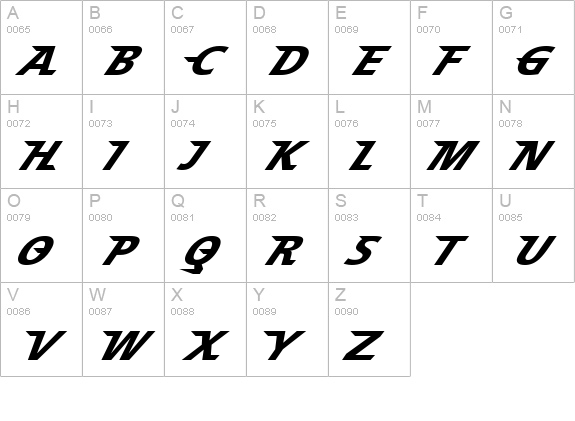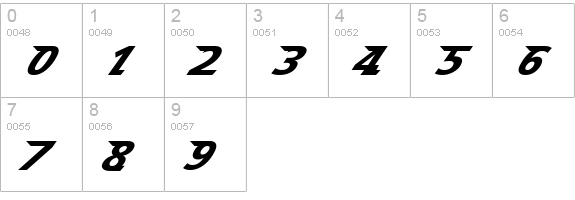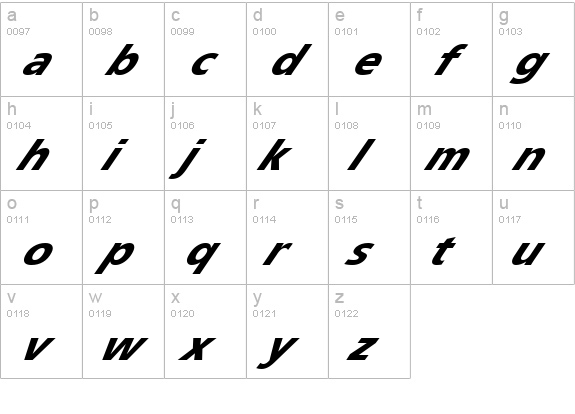
Speedy 12 Font Details
Speedy 12 font is the epitome of elegance and versatility. With its sleek and modern design, this font is perfect for any project that requires a touch of sophistication. Whether you're designing a logo, creating a website, or designing a brochure, Speedy 12 font will elevate your work to new heights. One of the best things about Speedy 12 font is that it is freely available to download at FontsMarket.com. This means that you can easily access this stunning font without any cost. Don't let your budget hold you back from creating amazing designs - with Speedy 12 font, you can achieve professional results without breaking the bank. Not only is Speedy 12 font visually appealing, but it is also highly legible. Its clean lines and well-defined characters make it easy to read, ensuring that your message gets across effectively. Whether you're using it for body text or headlines, Speedy 12 font will make your text effortlessly readable. Another standout feature of Speedy 12 font is its extensive character set. With a wide range of glyphs and symbols, this font allows you to express your creativity and add unique elements to your designs. From special characters to alternate letterforms, Speedy 12 font offers endless possibilities for customization. In addition to its aesthetic appeal and versatility, Speedy 12 font is also compatible with various software and platforms. Whether you're using Adobe Creative Suite, Microsoft Office, or any other design software, you can easily incorporate Speedy 12 font into your projects. Overall, Speedy 12 font is a must-have for designers, artists, and anyone who wants to add a touch of elegance to their creations. With its sleek design, legibility, extensive character set, and wide compatibility, Speedy 12 font is the perfect choice for any project. Best of all, it is freely available to download at FontsMarket.com, so you can start using it today and take your designs to the next level.